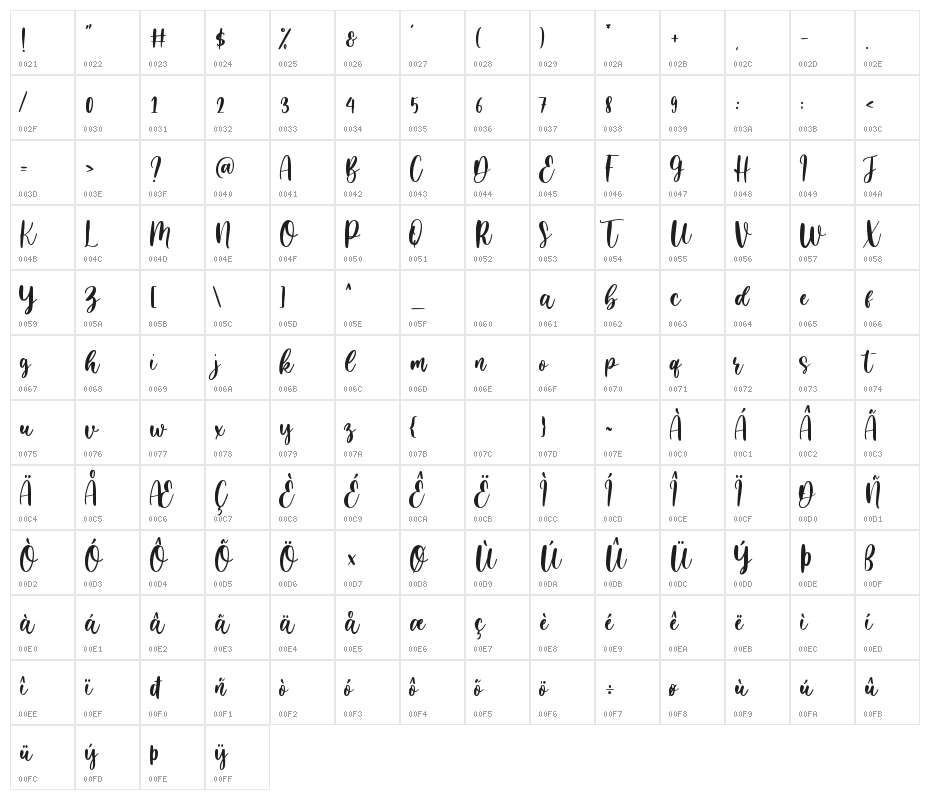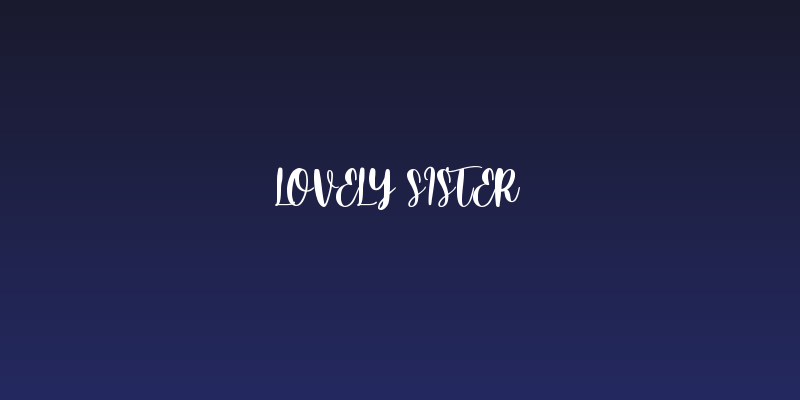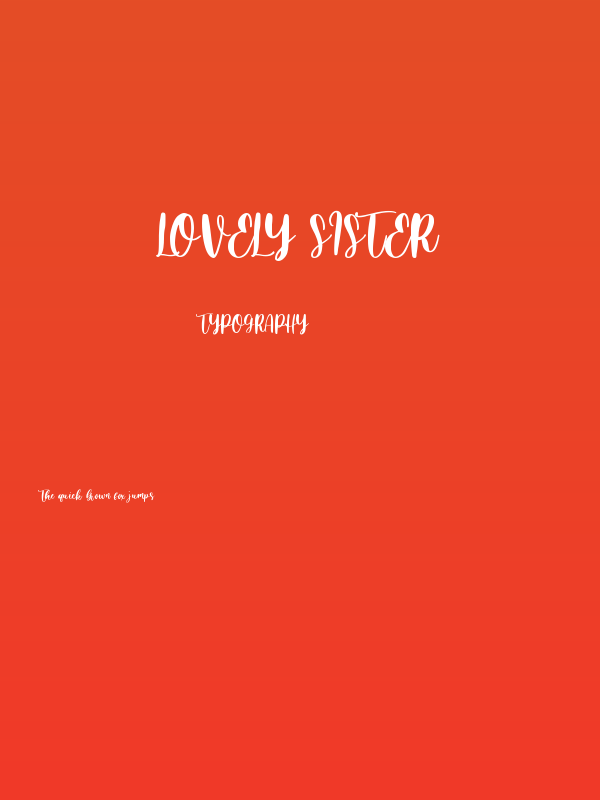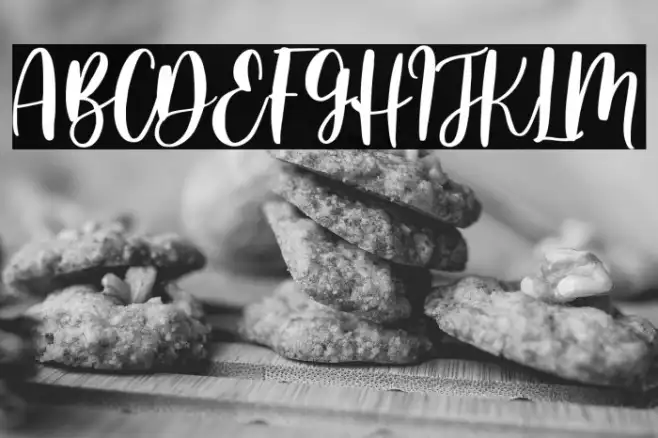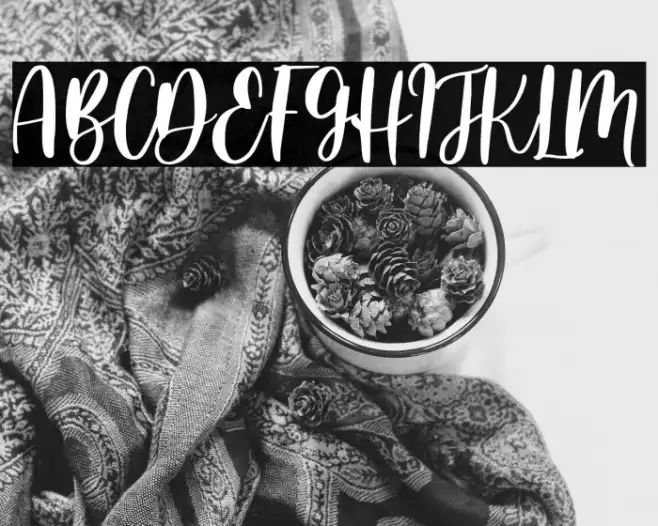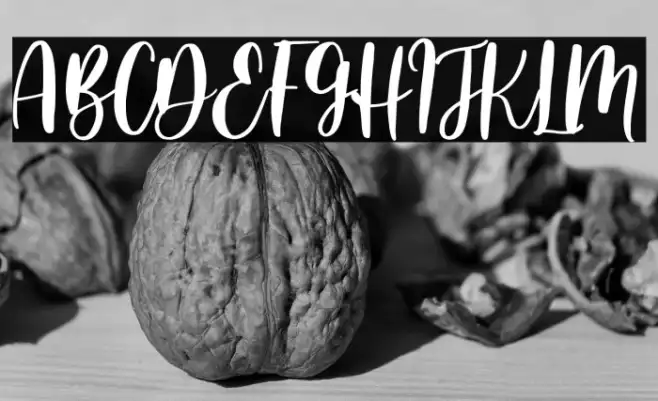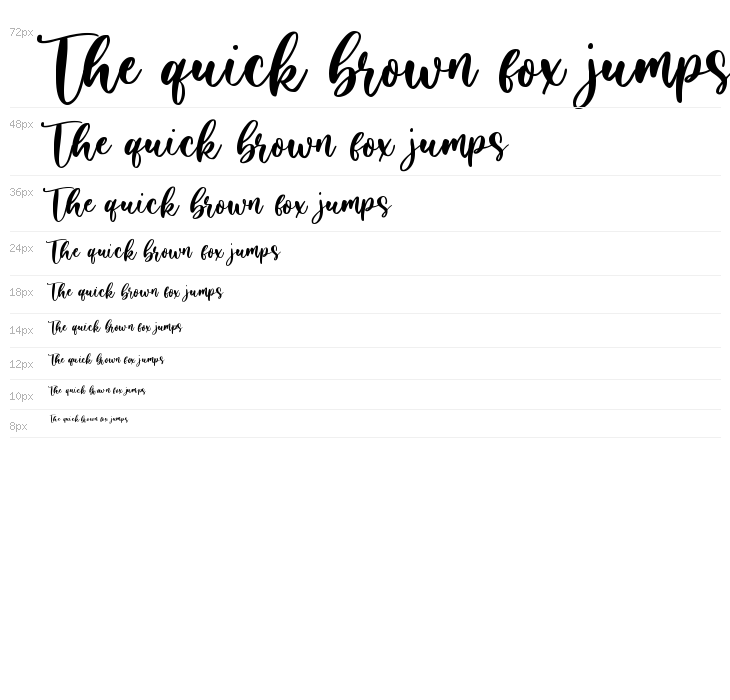
lovely sister Font
lovely sister Description
This font exudes a playful and elegant handwritten style, characterized by its flowing, cursive letters that convey a sense of warmth and personality. The uppercase letters are bold and slightly slanted, with smooth curves and a consistent stroke width that adds to its readability. The lowercase letters maintain the same fluidity, with some letters featuring charming loops and swashes that enhance its decorative appeal. The numerals are clear and match the overall style, making them suitable for various design contexts. Special characters are thoughtfully designed, ensuring they blend seamlessly with the rest of the font. This font is perfect for projects that require a personal touch, such as invitations, greeting cards, and branding materials.